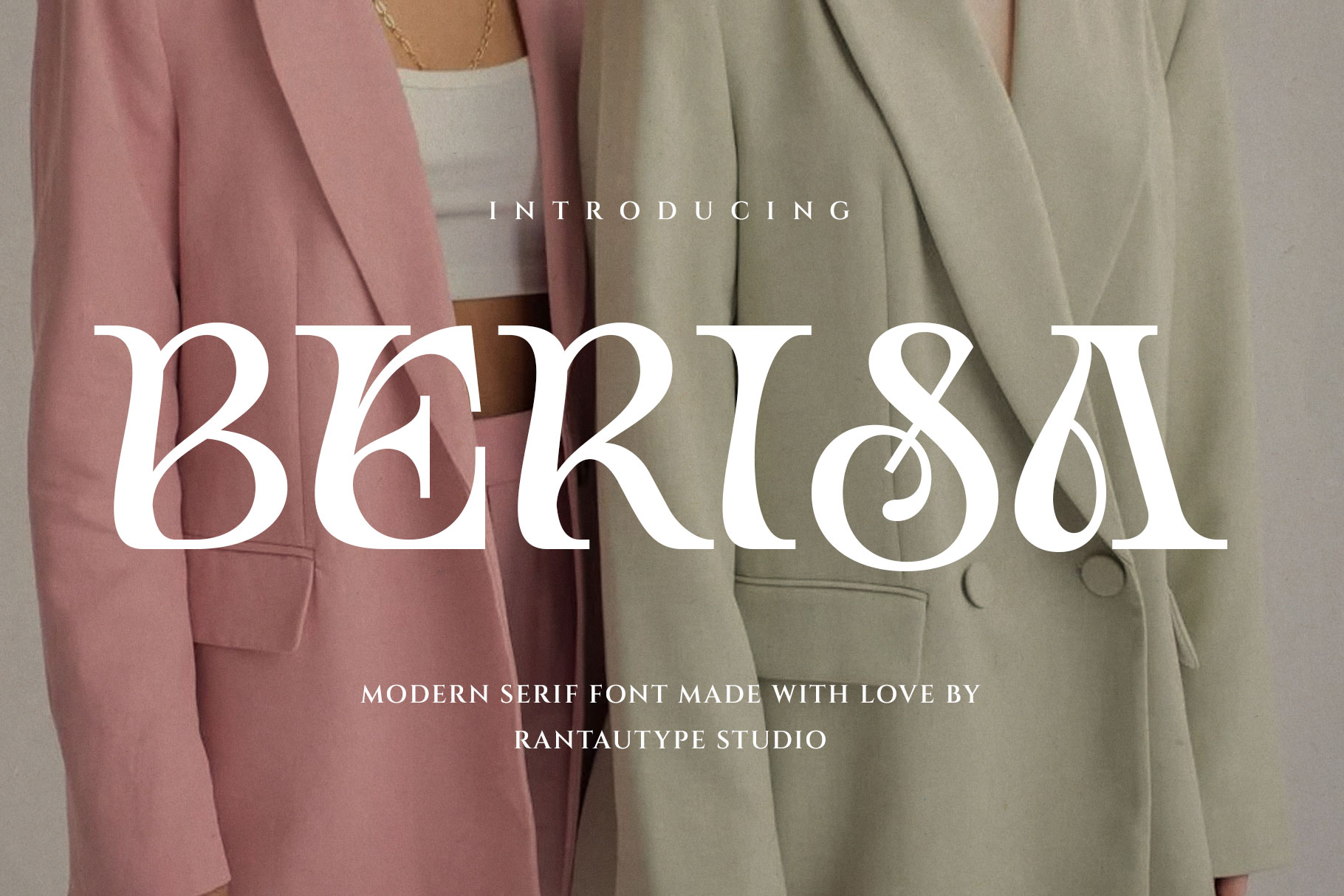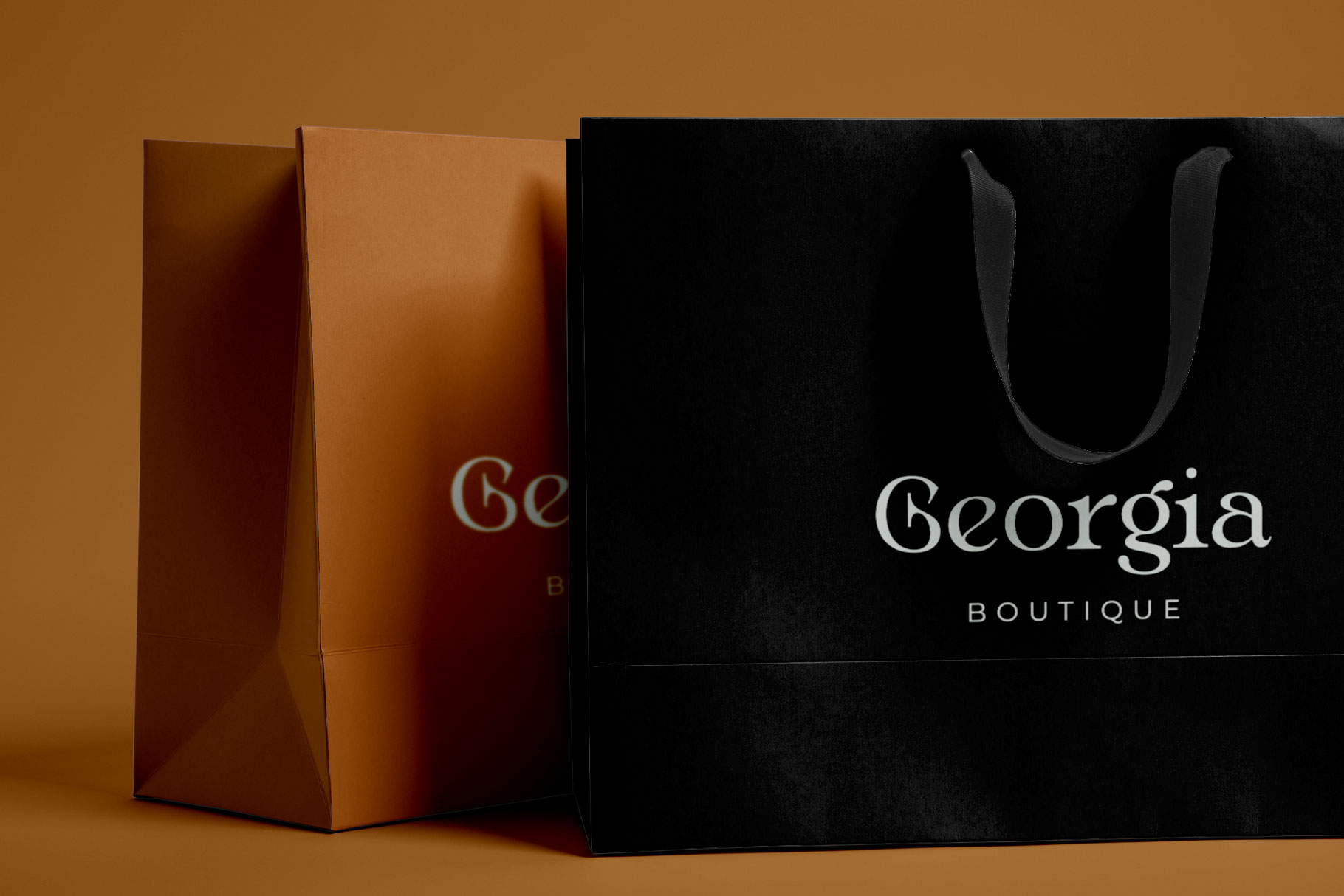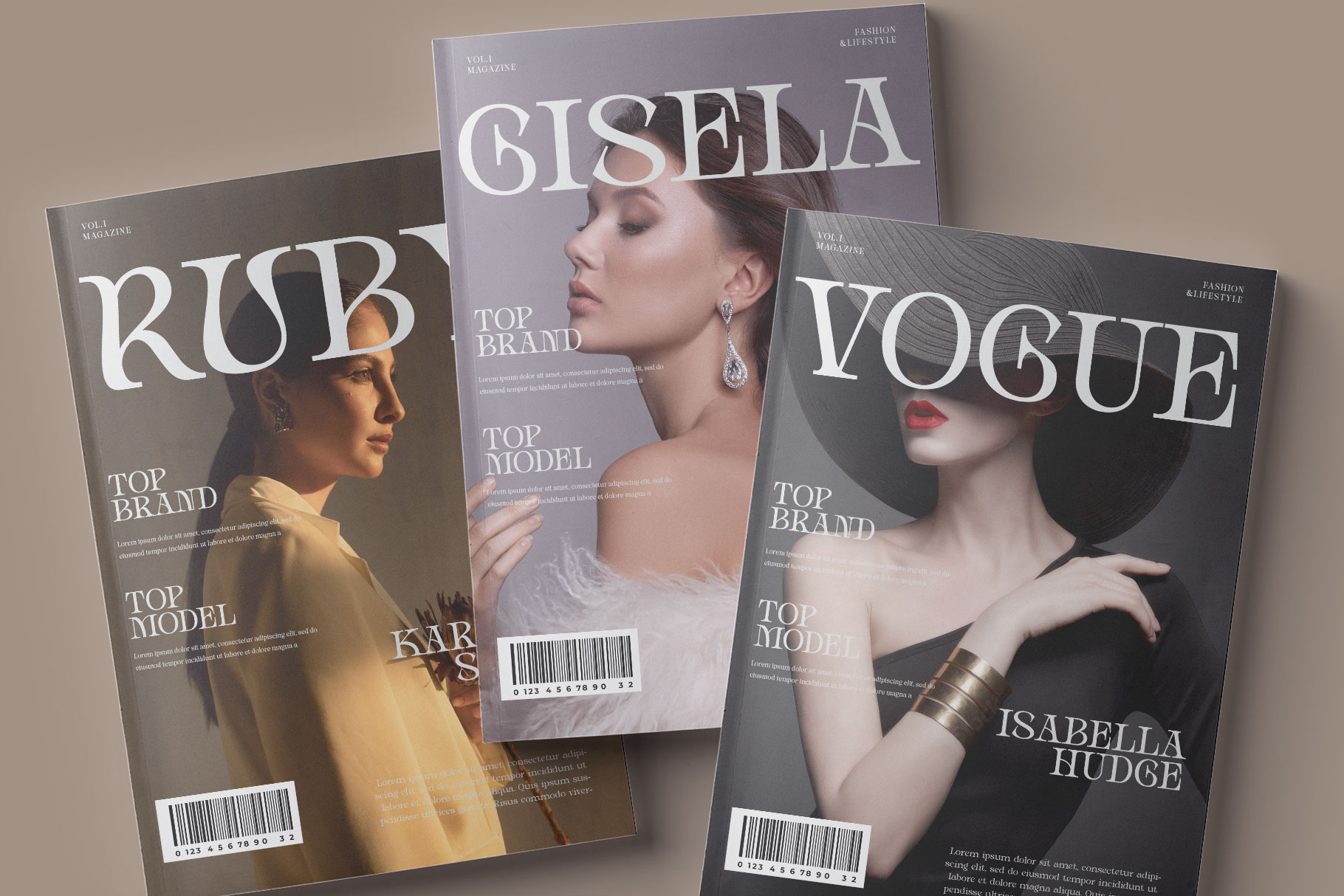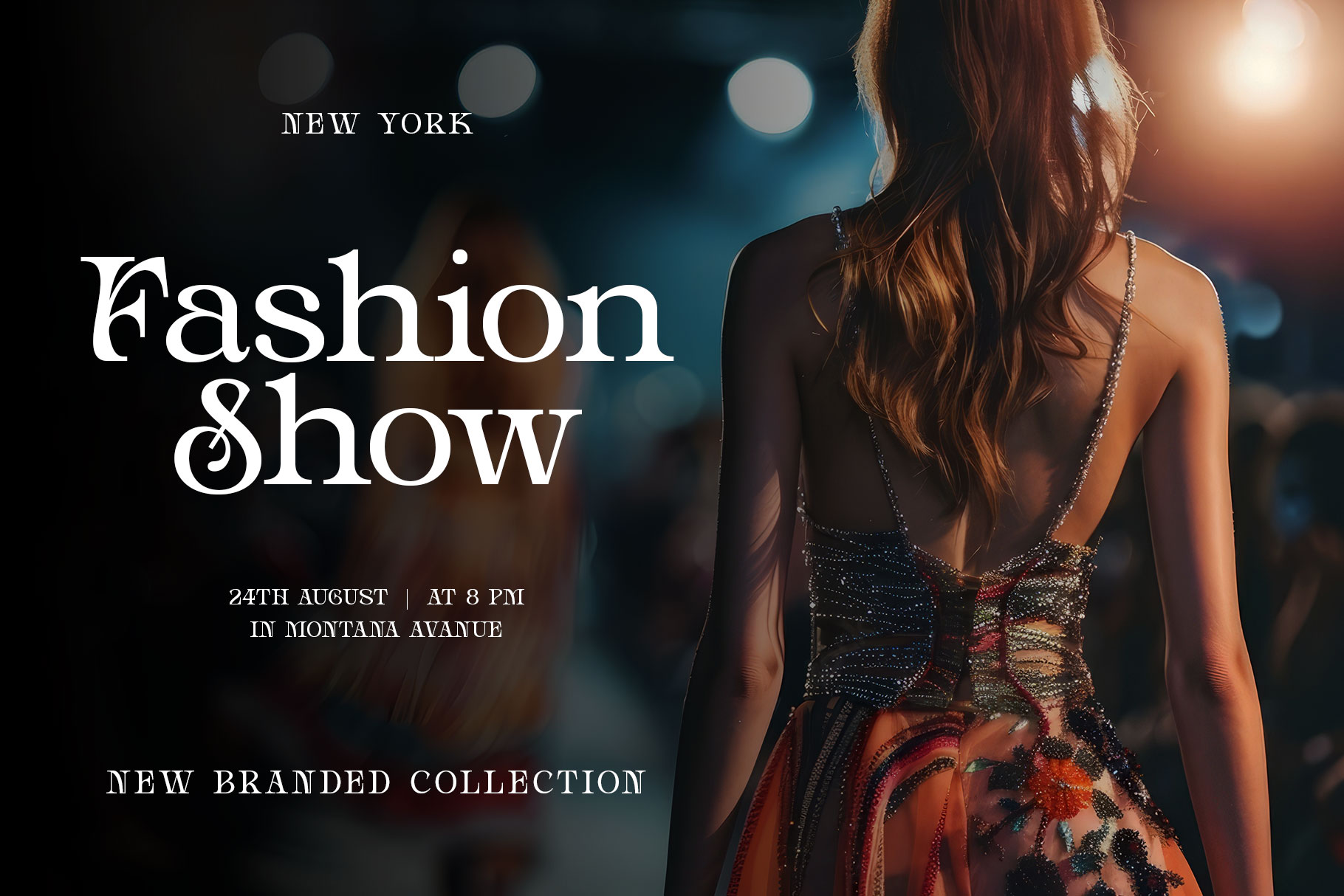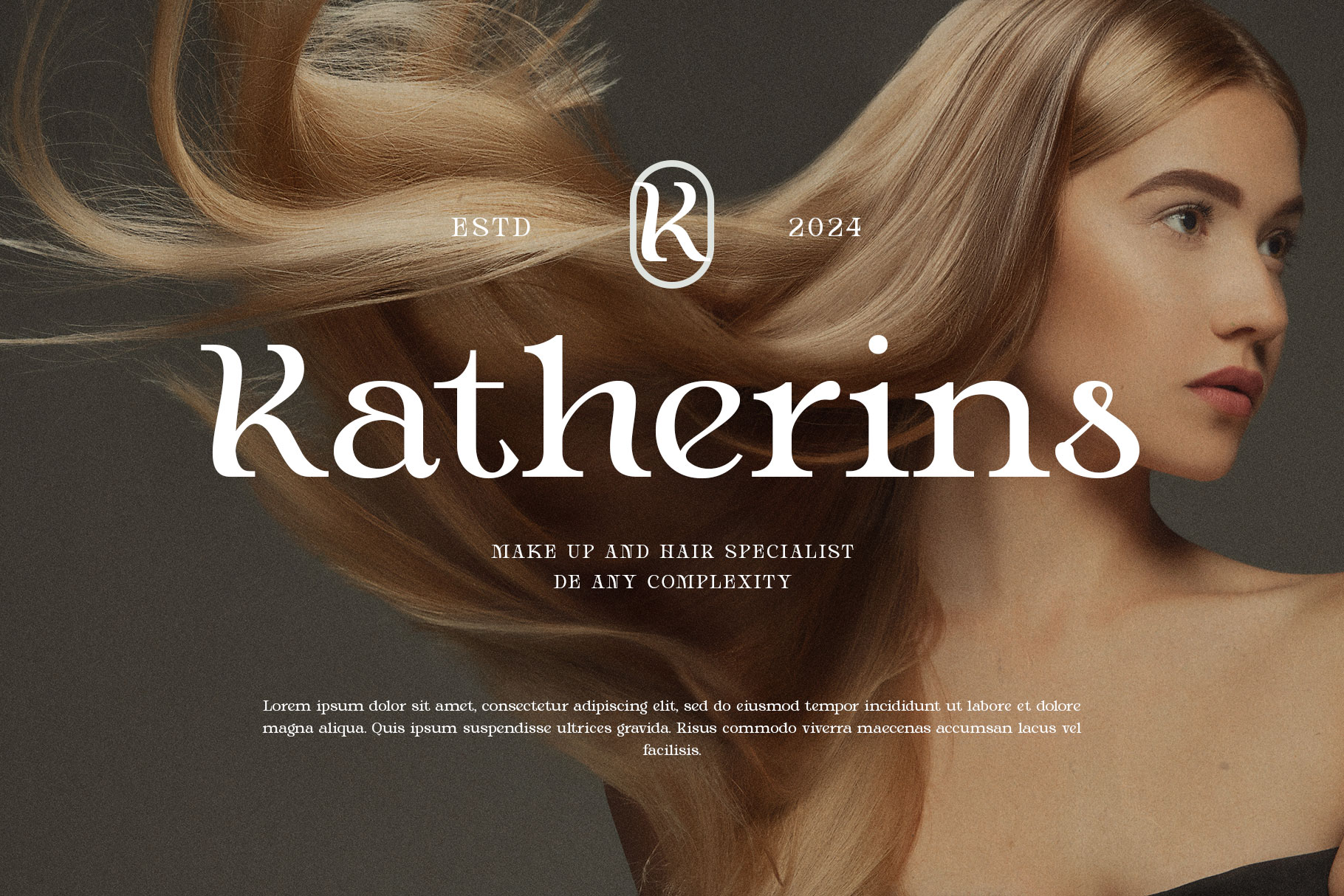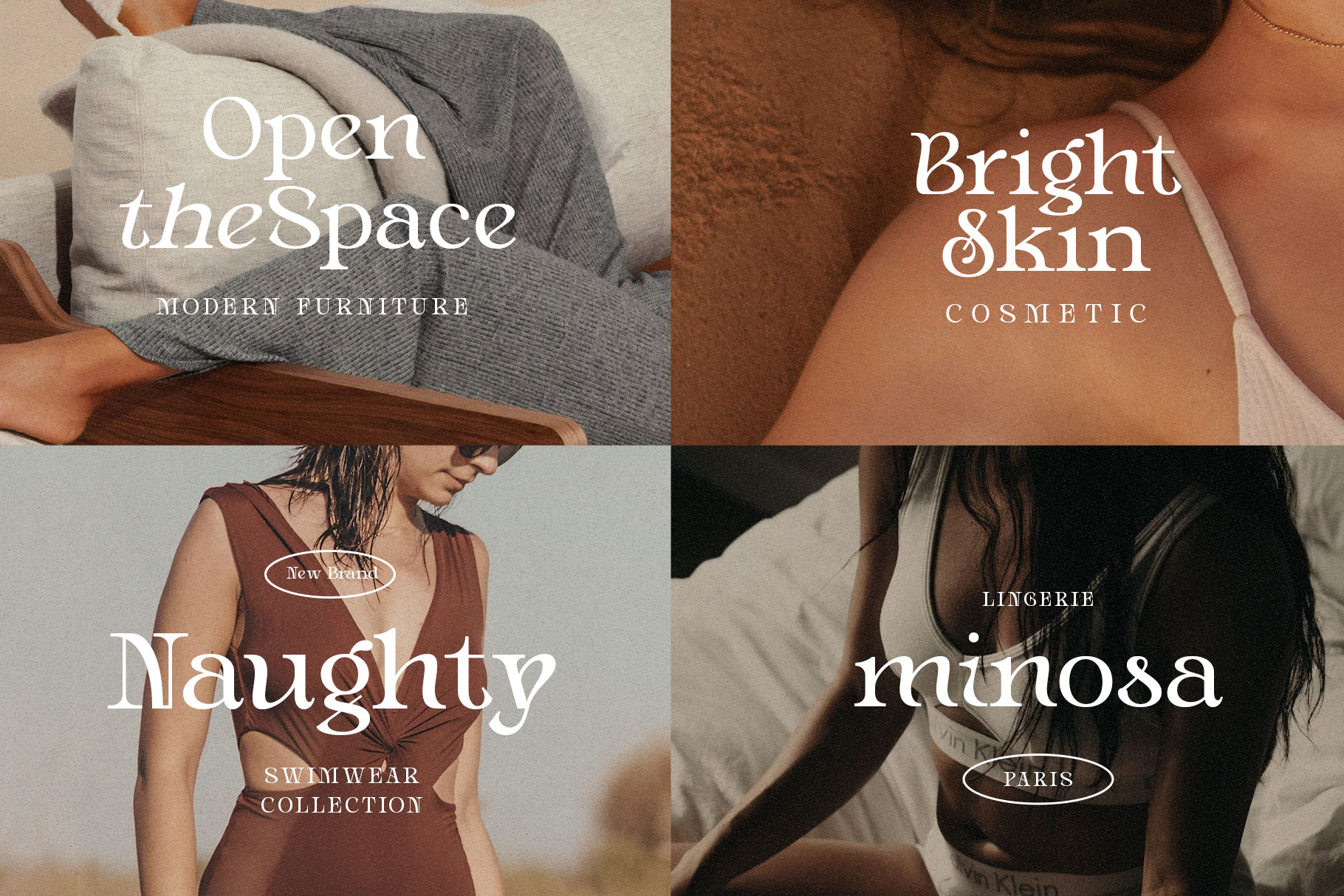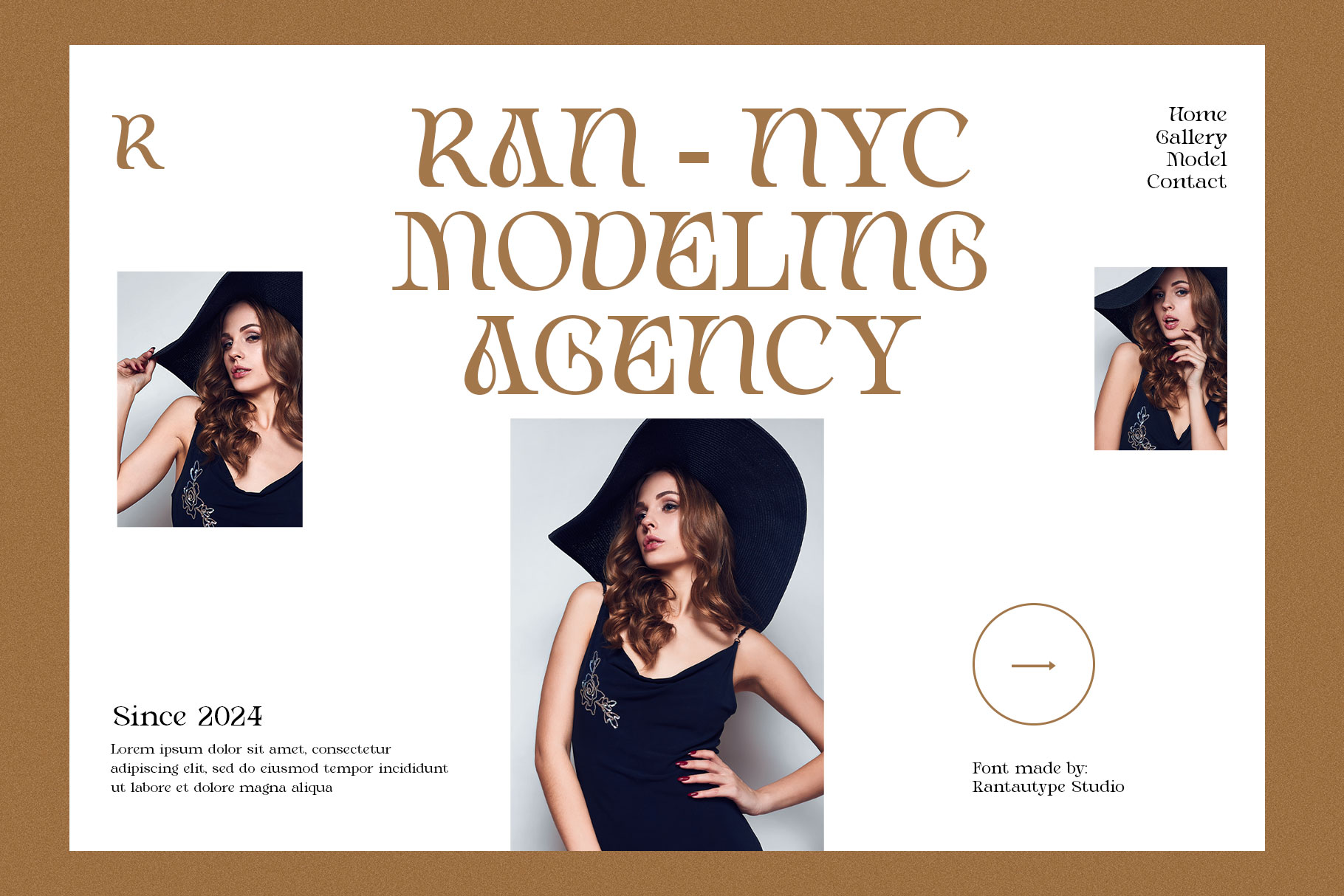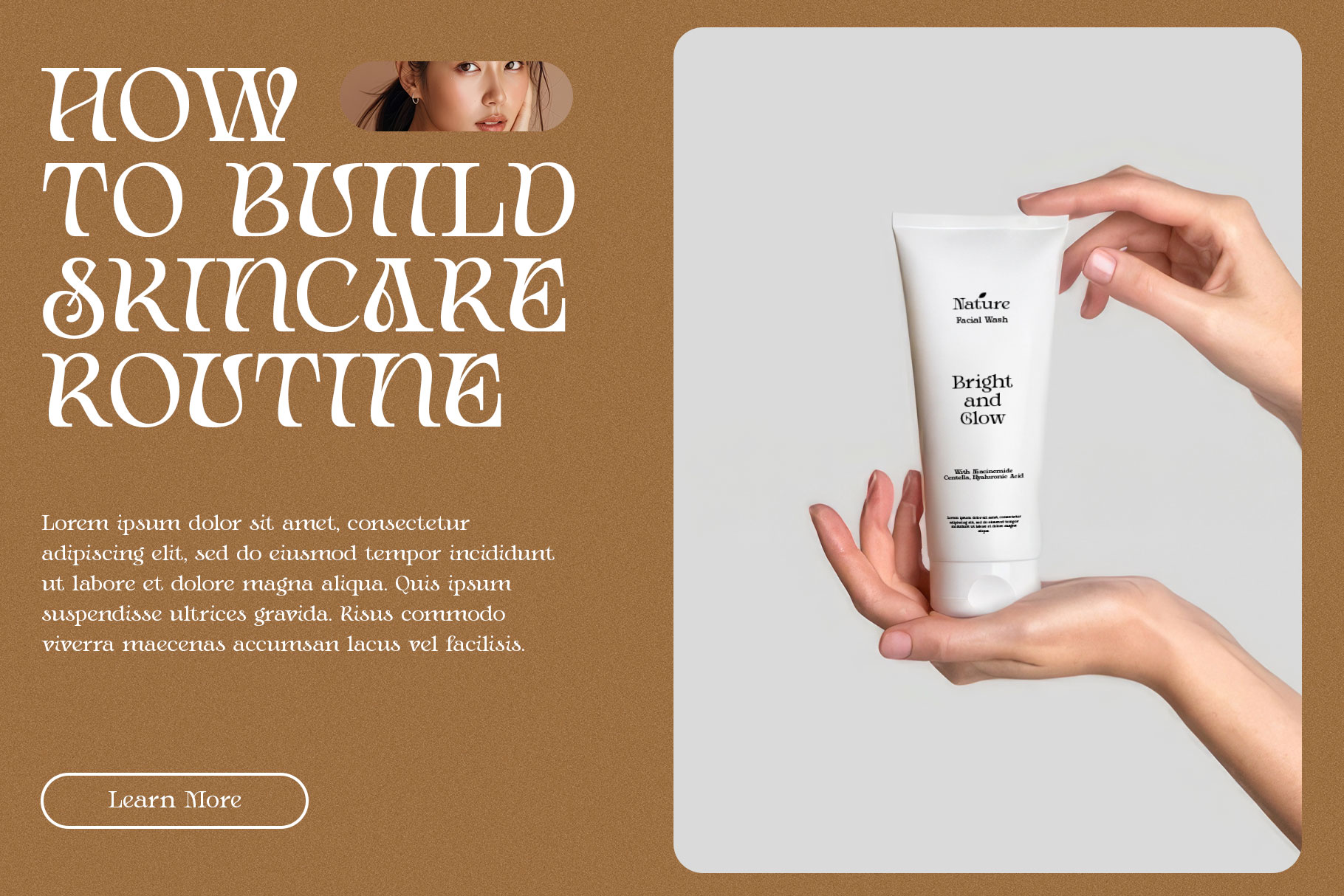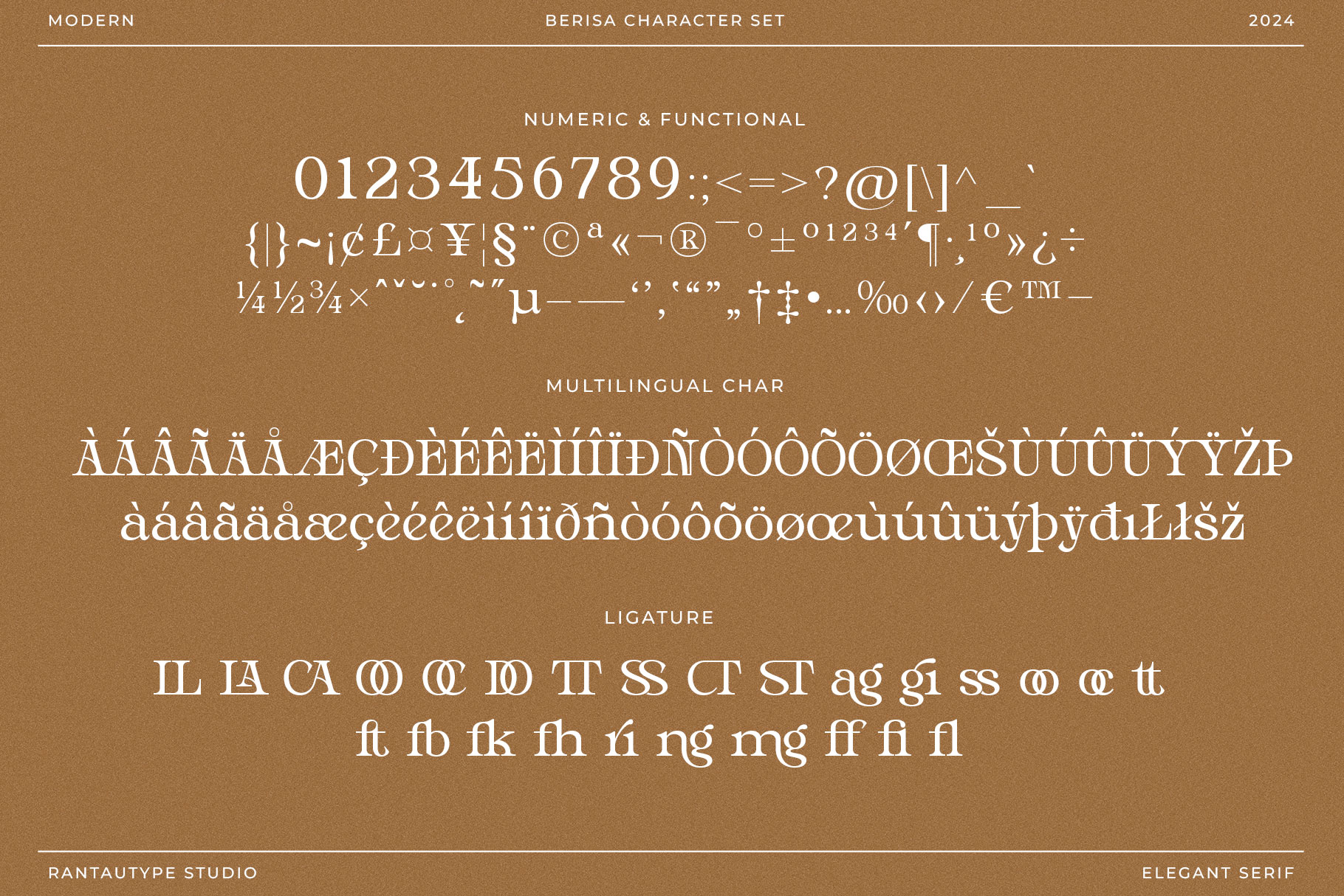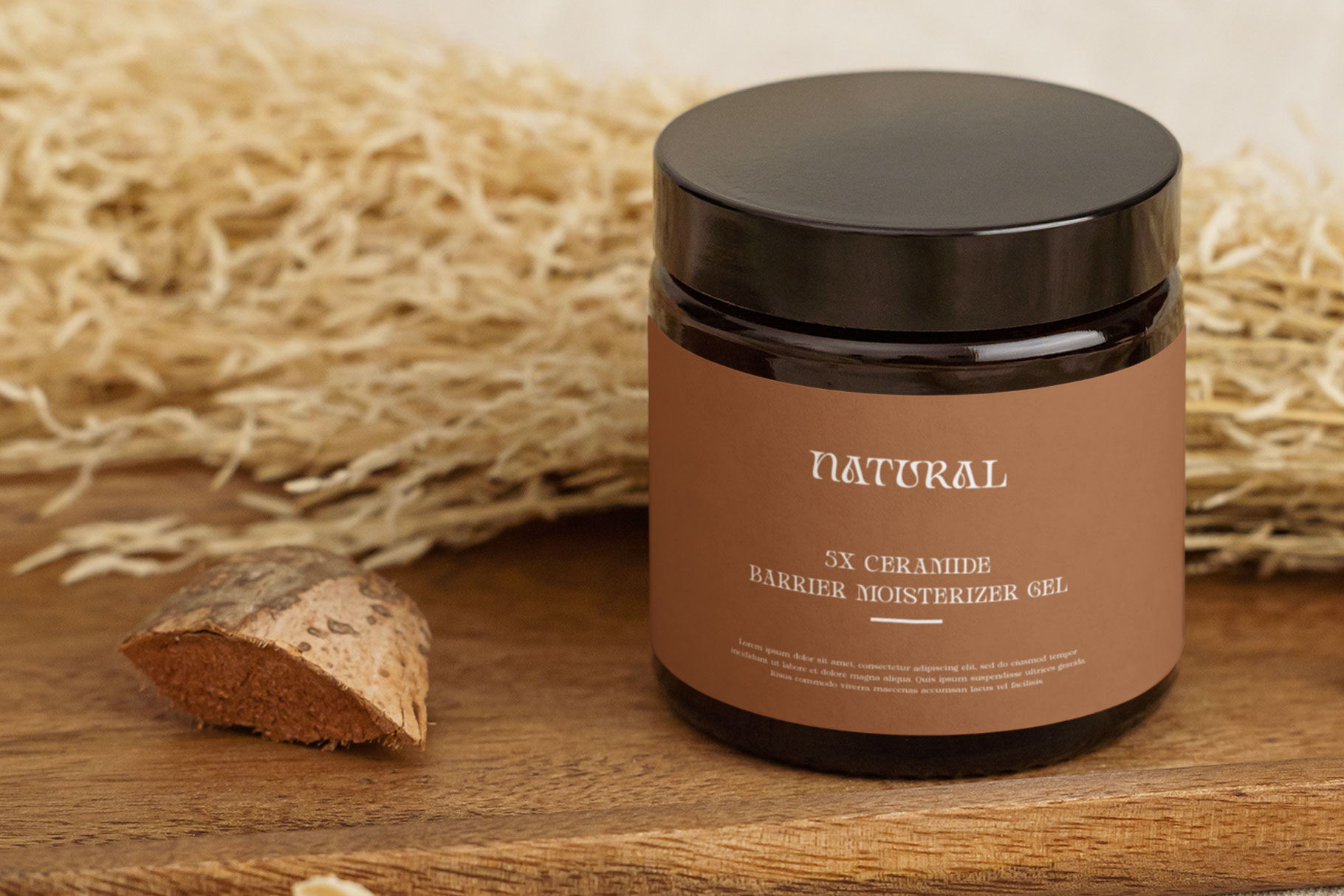
Berisa Modern Serif Font
Berisa is a new modern serif font embrance elegance. Berisa come with unique curve make it memoriable and versetile. We keep this font look fashionable, elegant and luxury.
Berisa is a beautiful choice for any creative endeavor, creating elegant, modern, chic, lifestyle design such as logotype, title, cover, branding, invitations, wedding designs, display and magazine, social media posts, advertisements, printed quotes, product packaging, corporate brand, product designs, labels, photography, watermarks, special events and any other project with elegant touch.